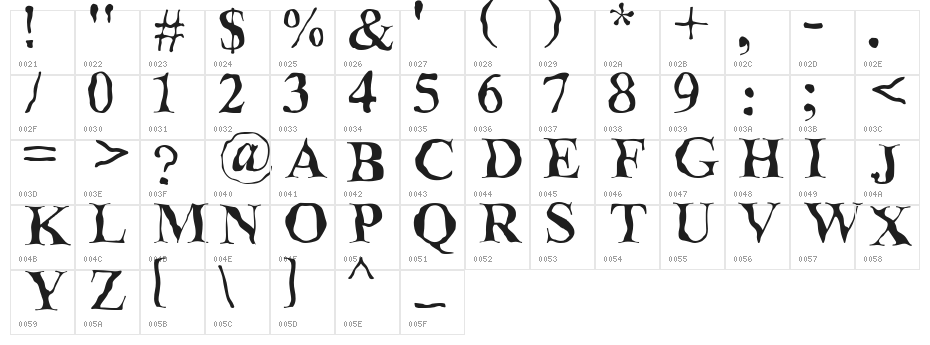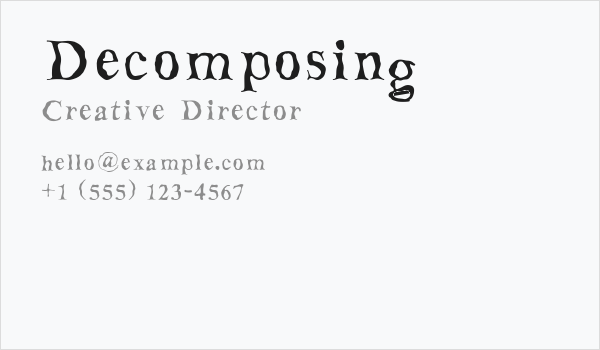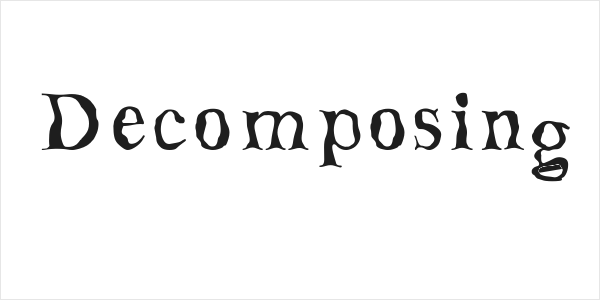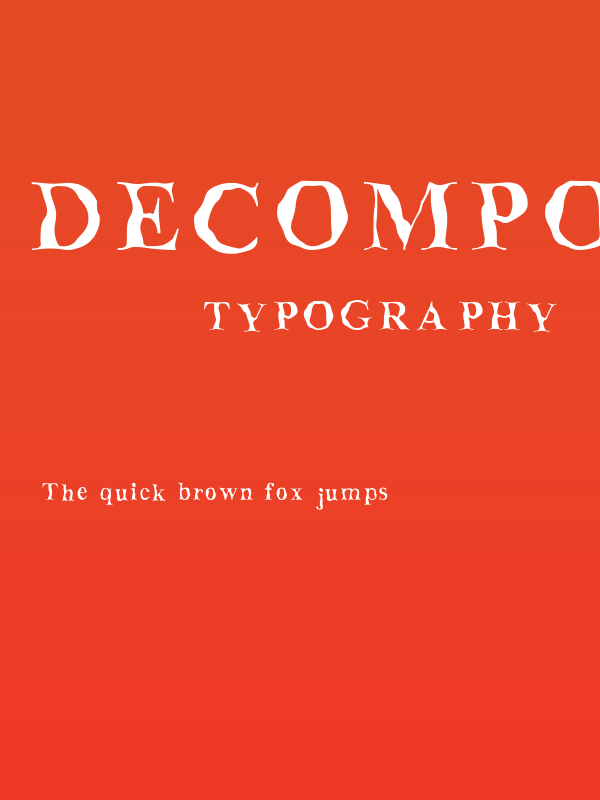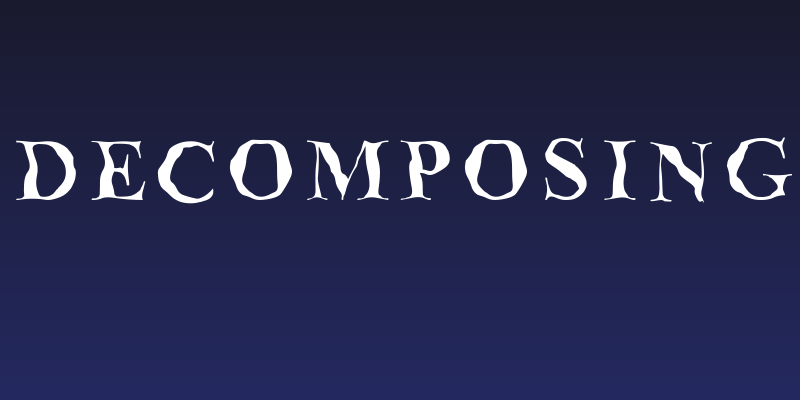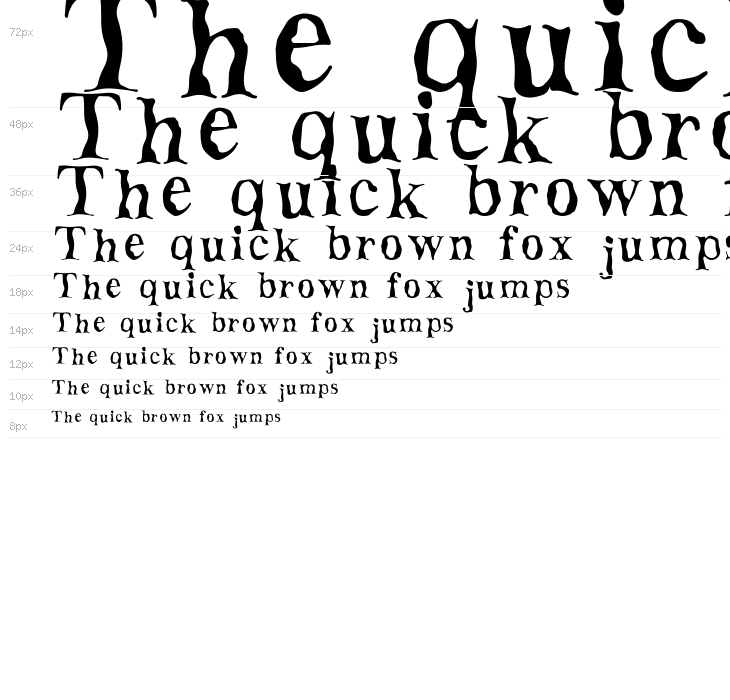
Decomposing Font
Decomposing Description
This font features a distressed, eroded style that gives it a unique, weathered appearance. The characters are irregular and uneven, with jagged edges and varying stroke widths that create a sense of decay and decomposition. The uppercase and lowercase letters maintain a consistent theme of roughness, while the numerals and special characters follow suit with their own distorted forms. This font's design evokes a sense of mystery and antiquity, making it ideal for projects that require a touch of the macabre or the gothic. Its distinctive look is both eye-catching and memorable, suitable for creative and artistic applications.
| Overall Style | Gothic, Distressed |
| Use Case | Headlines, Posters, Branding |
| Proposed Projects | Perfect for horror-themed posters, Halloween invitations, gothic book covers, and edgy branding materials. |